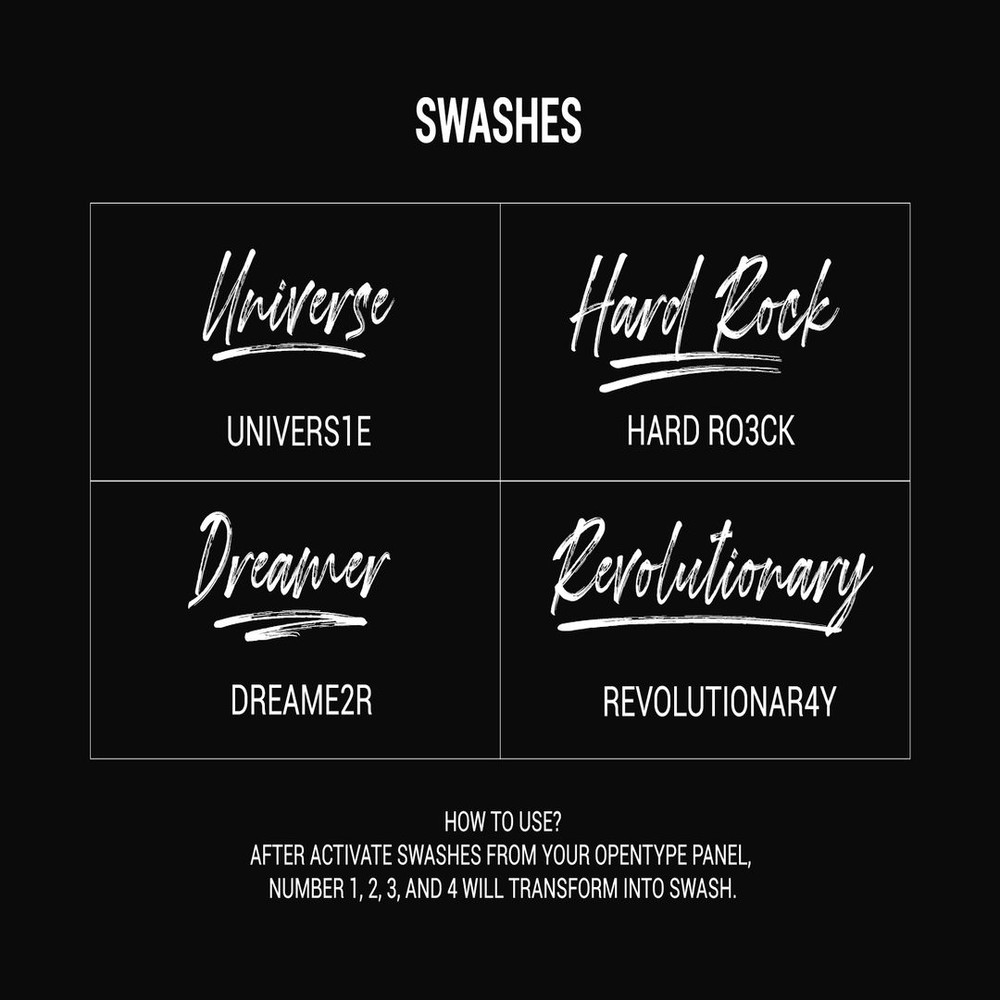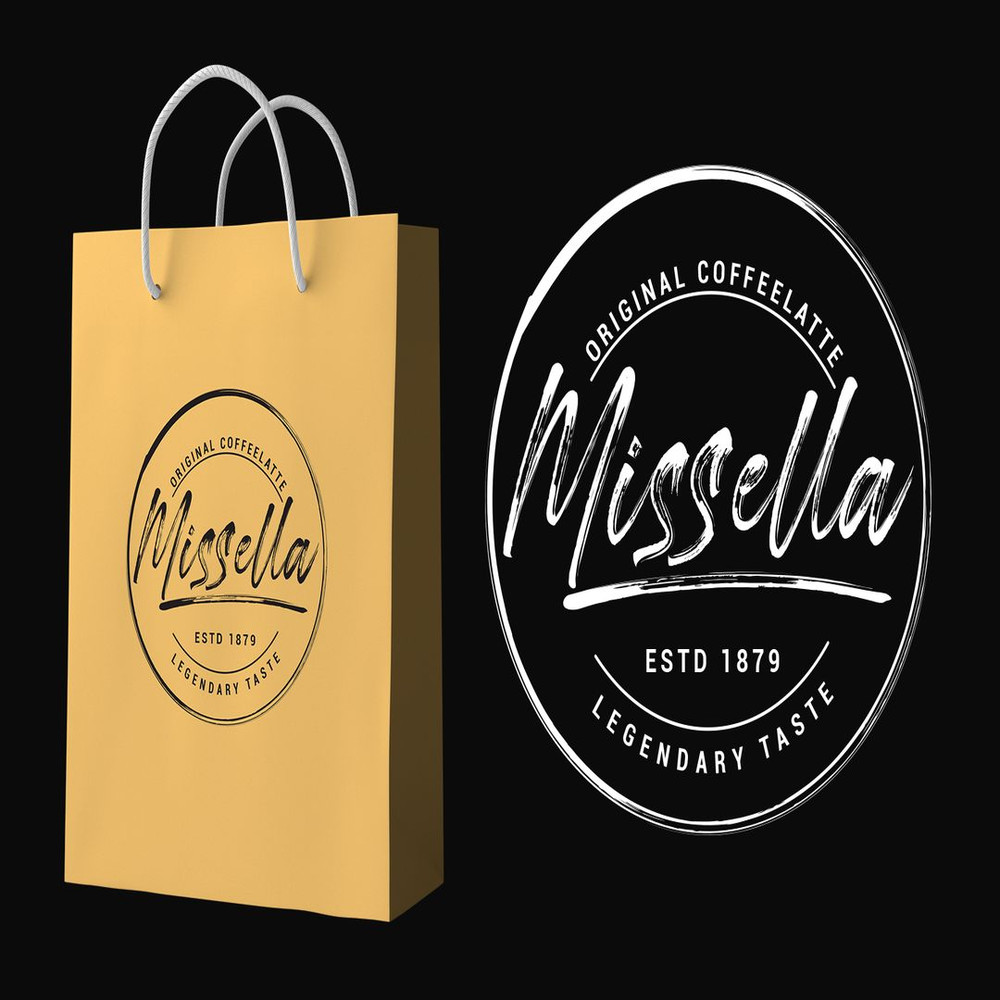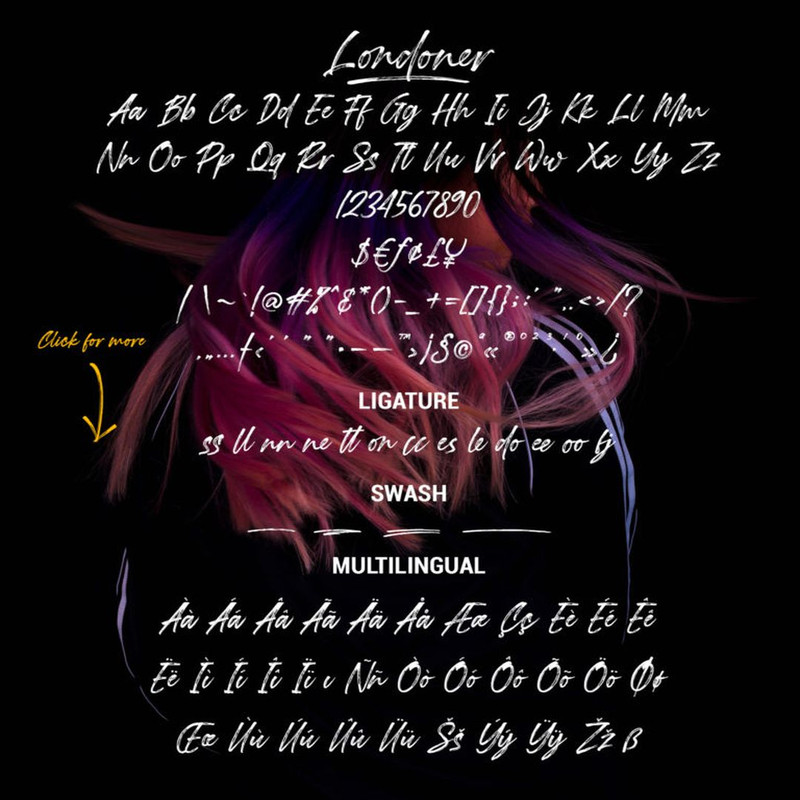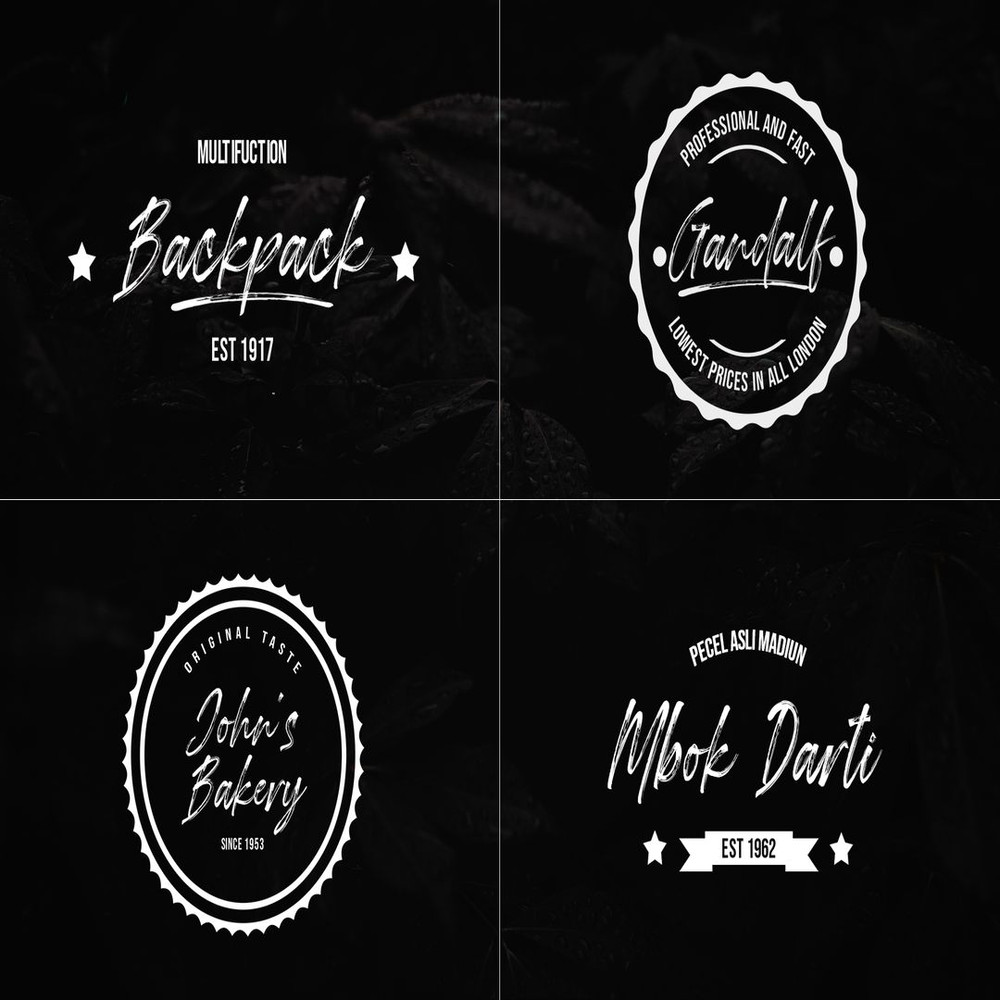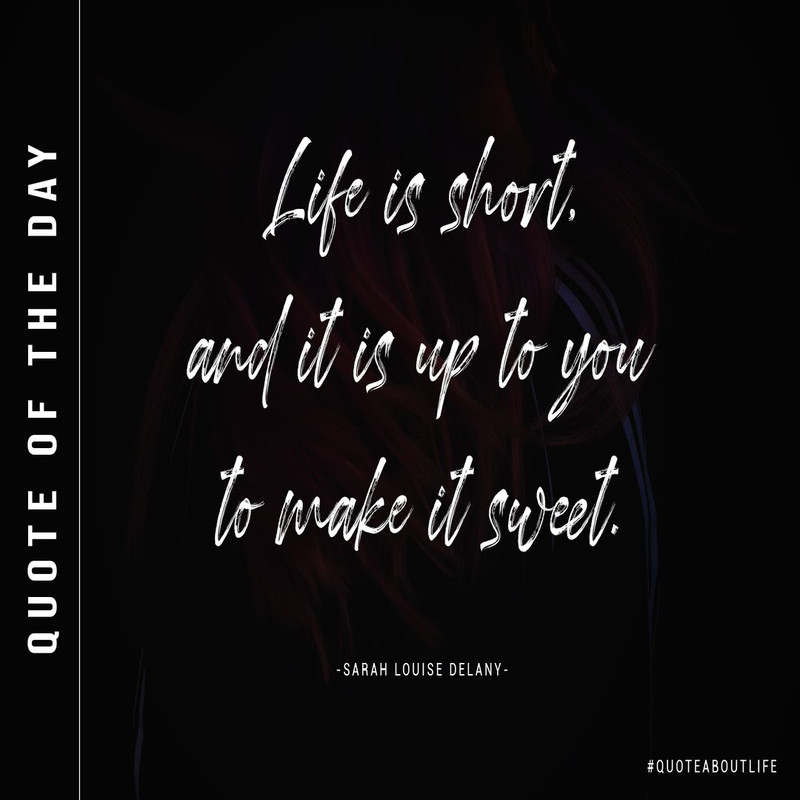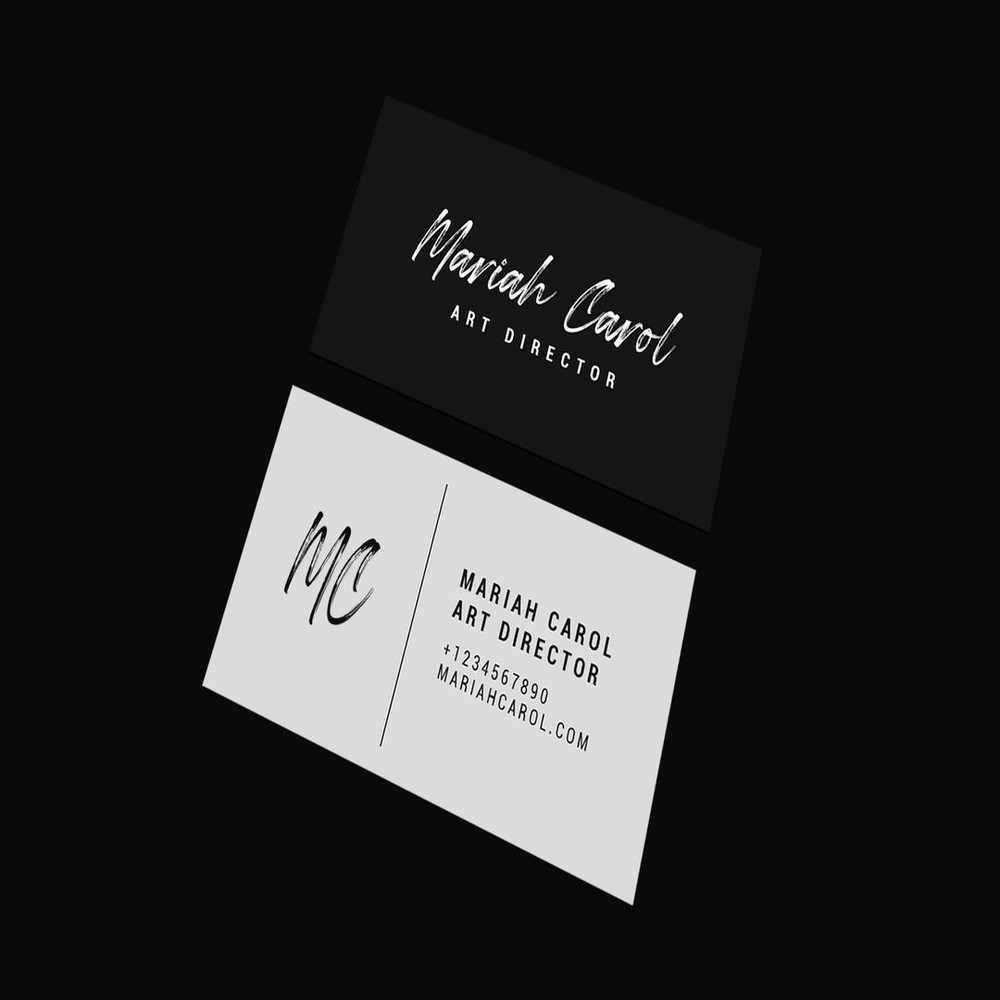
Londoner is handwritten font with dry brush texture. It created directly with my marker vector brush, all process is digitally. You can get the vector brushes include as a bonus in this font pack. Londoner is suitable for logo, product branding, or for text overlay to any background image.
Londoner comes with ligatures, swashes, multilingual support, and also already PUA Encoded that provided in TTF and OTF format.